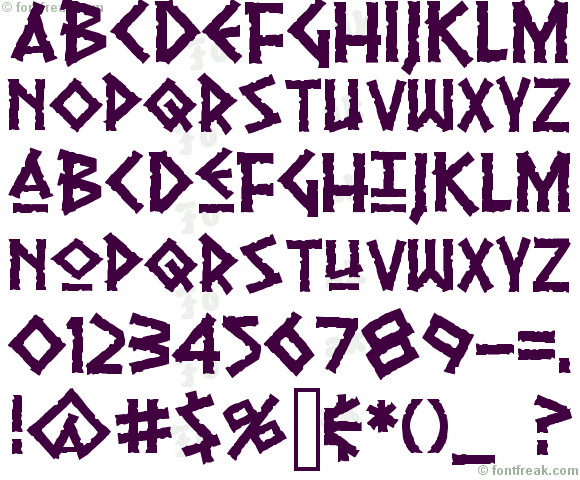
Pythia
About Pythia
Pythia by Blambot Fonts is a striking display typeface that captures attention with its unique, bold aesthetic. This font features a distinctive design characterized by irregular strokes that evoke a sense of creativity and spontaneity. The uneven edges and varied line thicknesses contribute to its artistic flair, making it ideal for projects that require a touch of personality. The spacing is intentionally uneven, enhancing its quirky style while ensuring legibility.
This font shines in various applications, particularly where a strong visual impact is desired. It is perfect for movie posters that aim to convey excitement and energy, making it an excellent choice for indie film promotions. Additionally, Pythia can elevate restaurant menus, giving them an inviting and playful feel that resonates with diners. Graphic designers will find it suitable for creating eye-catching branding materials, such as logos and promotional graphics that stand out from the crowd. The font is also a great option for merchandise design, adding a unique touch to t-shirts and other apparel.
What sets Pythia apart is its ability to balance artistic expression with functionality. The irregularities in its design not only make it visually appealing but also ensure that it captures the essence of contemporary design trends. For those interested in adding a distinctive flair to their projects, the Pythia font free download provides an accessible opportunity to enhance creativity and innovation in design.